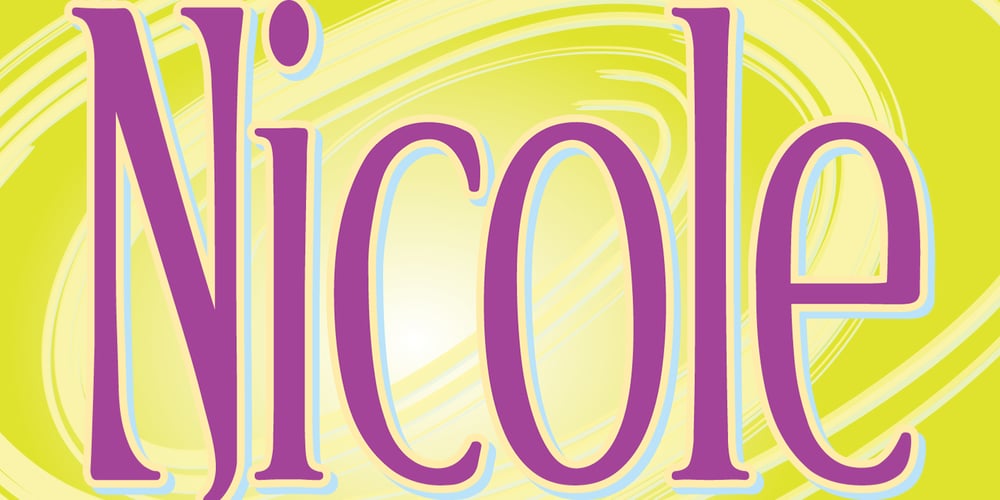
Nicole Font Family was designed by James A. Lebbad and published by Lebbad Design. Nicole contains 1 styles and family package options. Nicole is a delicate condensed serif font